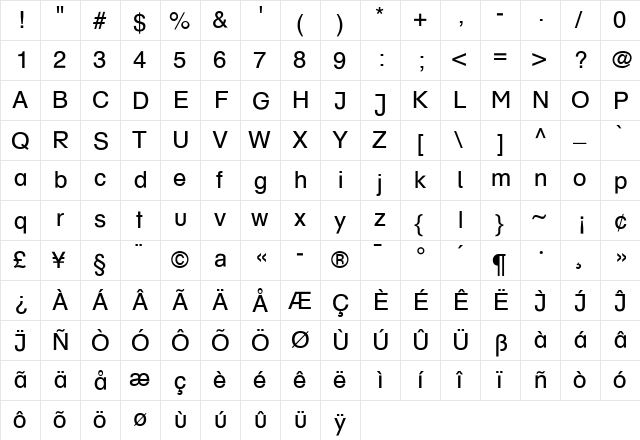
SchulbuchSued Normal
Design Context for SchulbuchSued Typeface
SchulbuchSued offers clean, dependable letterforms without strong stylistic allegiance, making it a practical choice for designers who need flexibility.